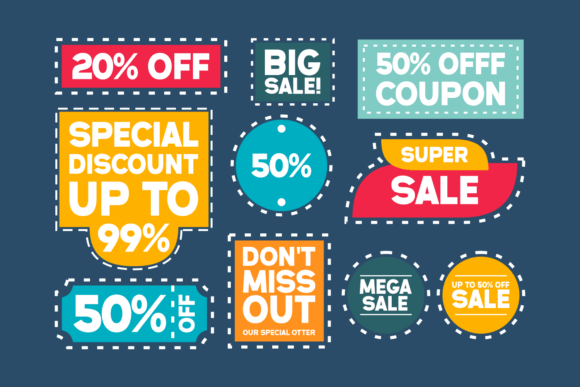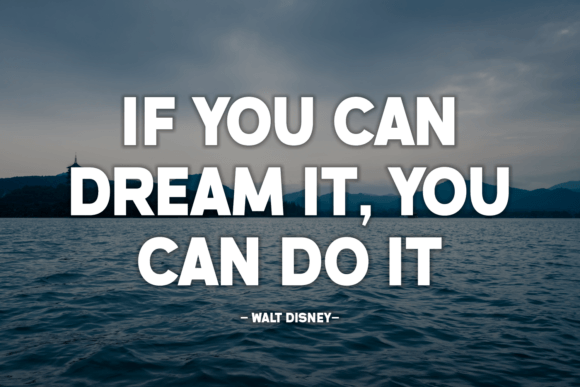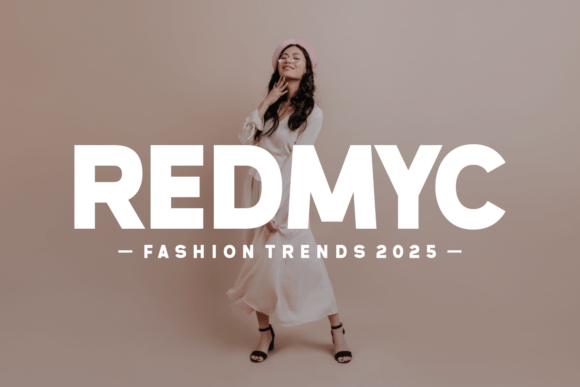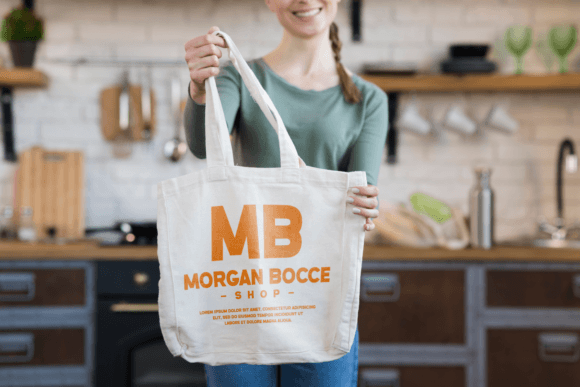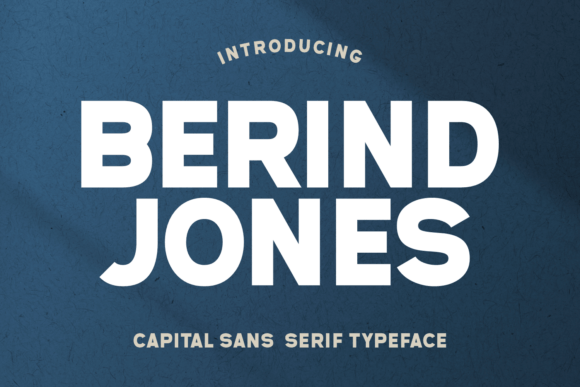
The Berind Jones Font: A Modern Sans Serif for Creative Projects
I’ll never forget the struggle I faced while working on a project for a client who needed a clean and modern font for their branding. I scoured the internet for hours, trying out different fonts, but none seemed to fit the bill. That was until I stumbled upon the Berind Jones font. Its simplicity and friendliness immediately caught my attention, and I knew I had found the perfect fit. In this article, I’ll share my experience with the Berind Jones font, its features, and how to make the most of it in your creative projects.
A Closer Look at Berind Jones
Berind Jones is a clean and modern sans serif font that features straight lines and smooth curves, making it easy to read. The letters are simple and friendly, perfect for both headlines and body text. This font works well for both print and digital designs, giving a fresh and professional look.
Here’s what I love about Berind Jones:
- ✨ Clean and modern design: The font’s simplicity makes it perfect for a wide range of creative projects.
- ✅ Ease of readability: The straight lines and smooth curves ensure that the text is easy to read, even at small sizes.
- 💡 Versatility: Berind Jones works well for both print and digital designs, making it a great addition to any designer’s toolkit.
However, I did notice a few quirks:
- 🤔 Limited character variations: While the font has a great range of characters, it may not be suitable for projects that require a lot of character variations.
- ⚠️ Not suitable for body text in small sizes: While Berind Jones is easy to read, it may not be the best choice for body text in small sizes (e.g., 8-10pt).
The Designer Inspiration Behind Berind Jones
Berind Jones was designed with the goal of creating a clean and modern sans serif font that is easy to read and versatile. The font’s creator aimed to create a font that would be perfect for a wide range of creative projects, from branding and advertising to digital and print designs.
| What is Berind Jones? | Berind Jones is a clean and modern sans serif font designed for creative projects. |
| Is Berind Jones suitable for body text? | Yes, Berind Jones is suitable for body text, but it may not be the best choice for small sizes (e.g., 8-10pt). |
| Is Berind Jones available in different weights? | Yes, Berind Jones is available in different weights, making it versatile for a wide range of creative projects. |